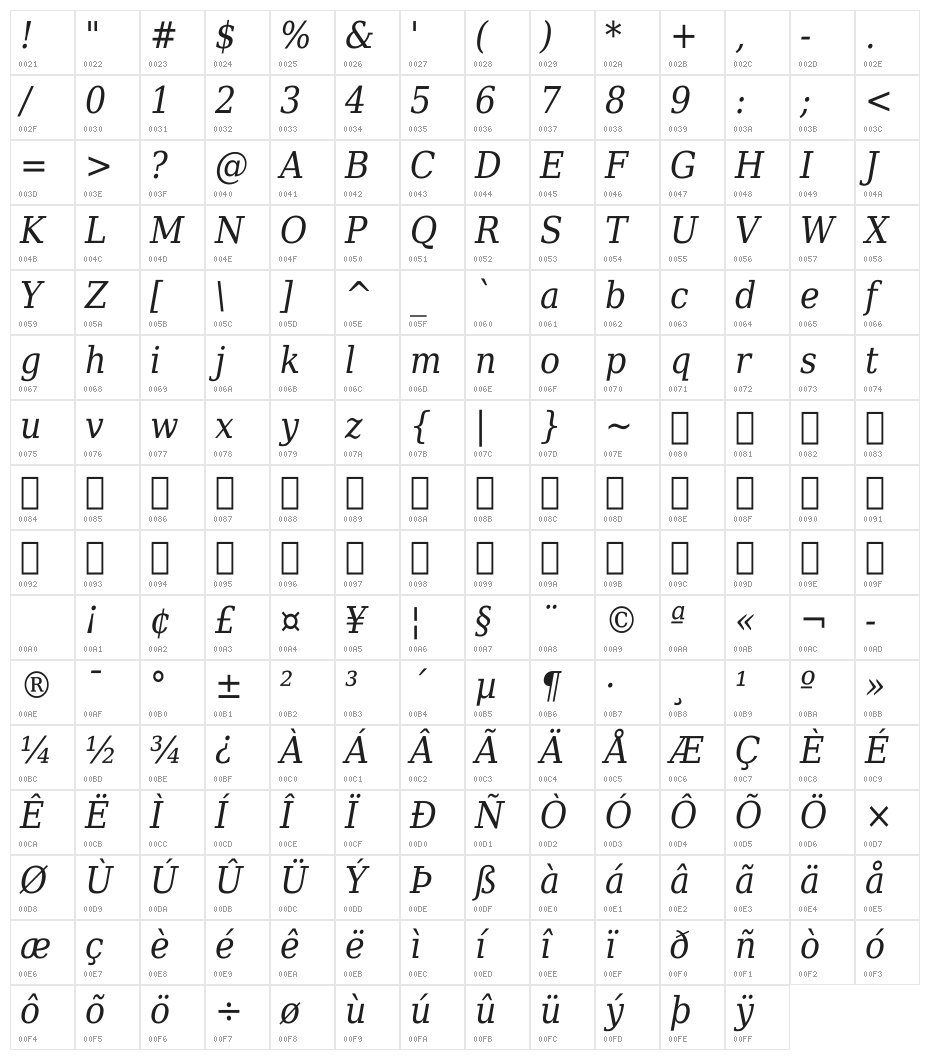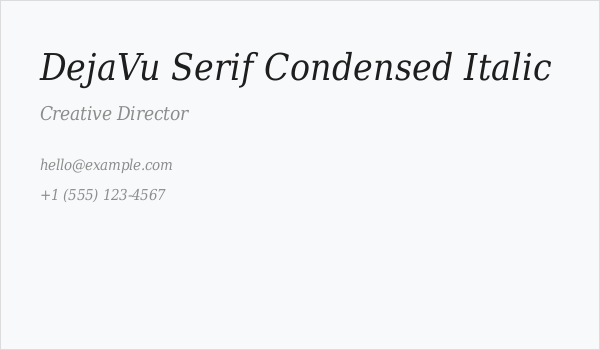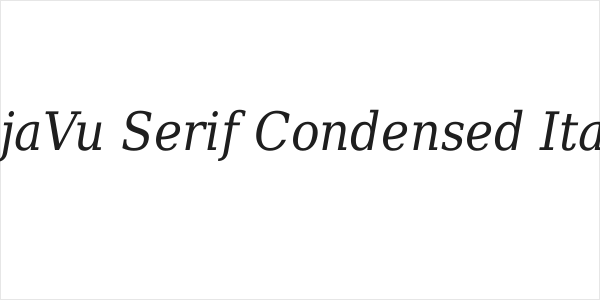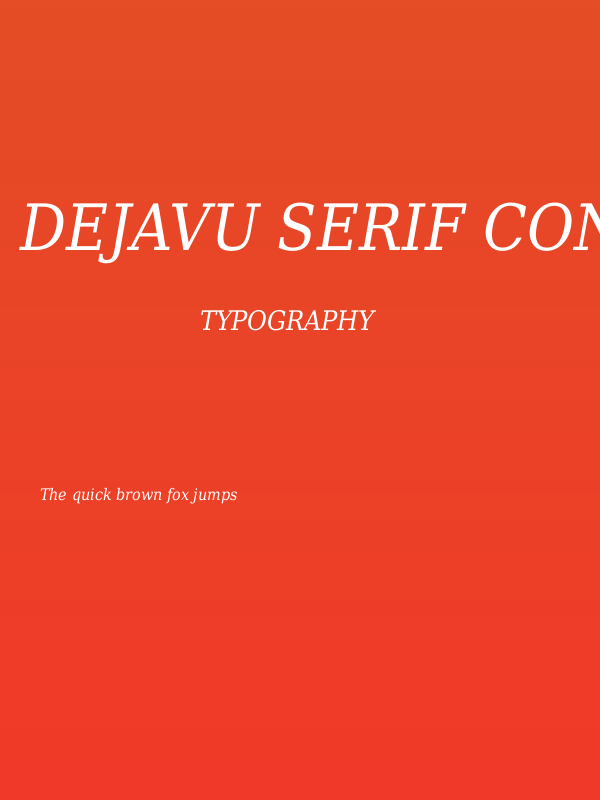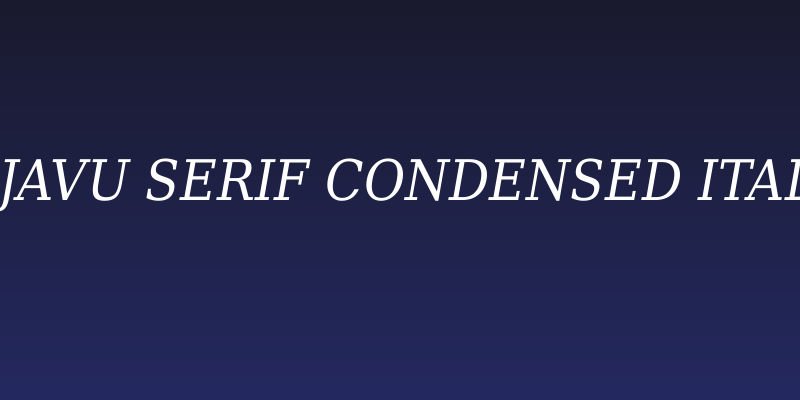
DejaVu Serif Condensed Italic Font
DejaVu Serif Condensed Italic Description
This font features a classic serif style with a condensed and italicized form, offering a refined and elegant appearance. The serifs are pronounced yet not overly ornate, providing a balance between readability and sophistication. The italic slant adds a dynamic and flowing quality, making it suitable for both formal and creative applications. The condensed nature allows for efficient use of space, making it ideal for settings where text needs to be compact yet legible. The font maintains a consistent stroke width, contributing to a clean and uniform look across all characters.
| Use Case | Headlines, Body text, Editorial design |
| Proposed Projects | Ideal for book covers, formal invitations, editorial layouts, and sophisticated branding projects. |